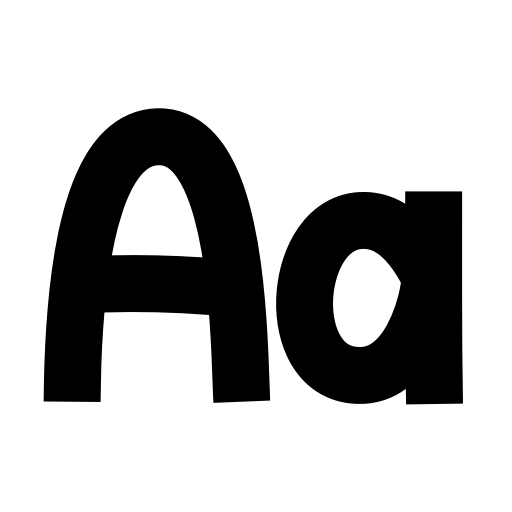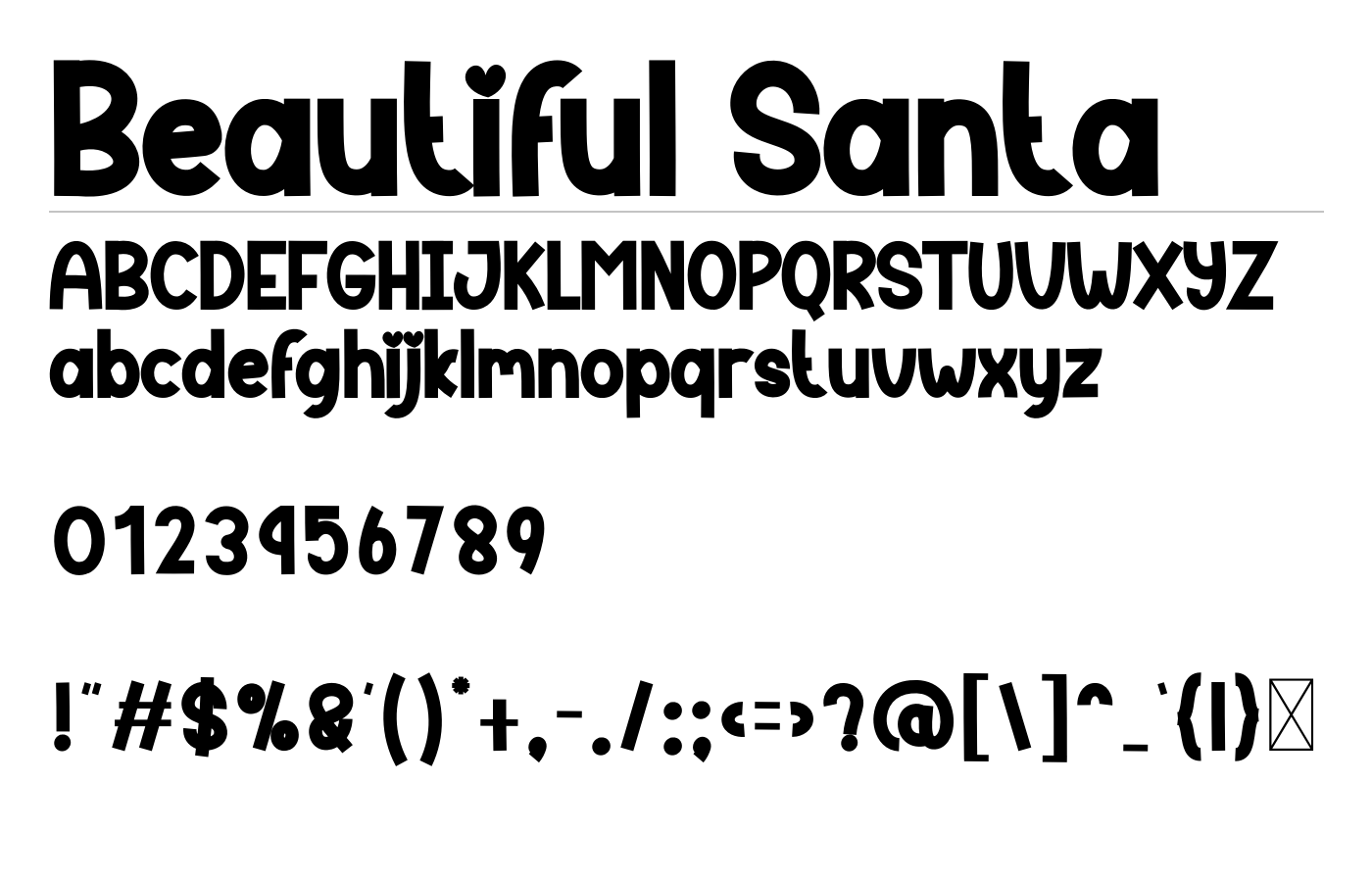
Beautiful Santa is a playful, bold sans serif font with a strong, friendly personality perfect for fun, casual designs. Its rounded shapes, quirky letterforms, and distinctive heart details create a joyful, whimsical feel, making it ideal for festive branding, children's products, and cheerful headlines. This font works well where a lively and approachable look is needed, such as party invitations, posters, and playful logos.
Beautiful Santa Font